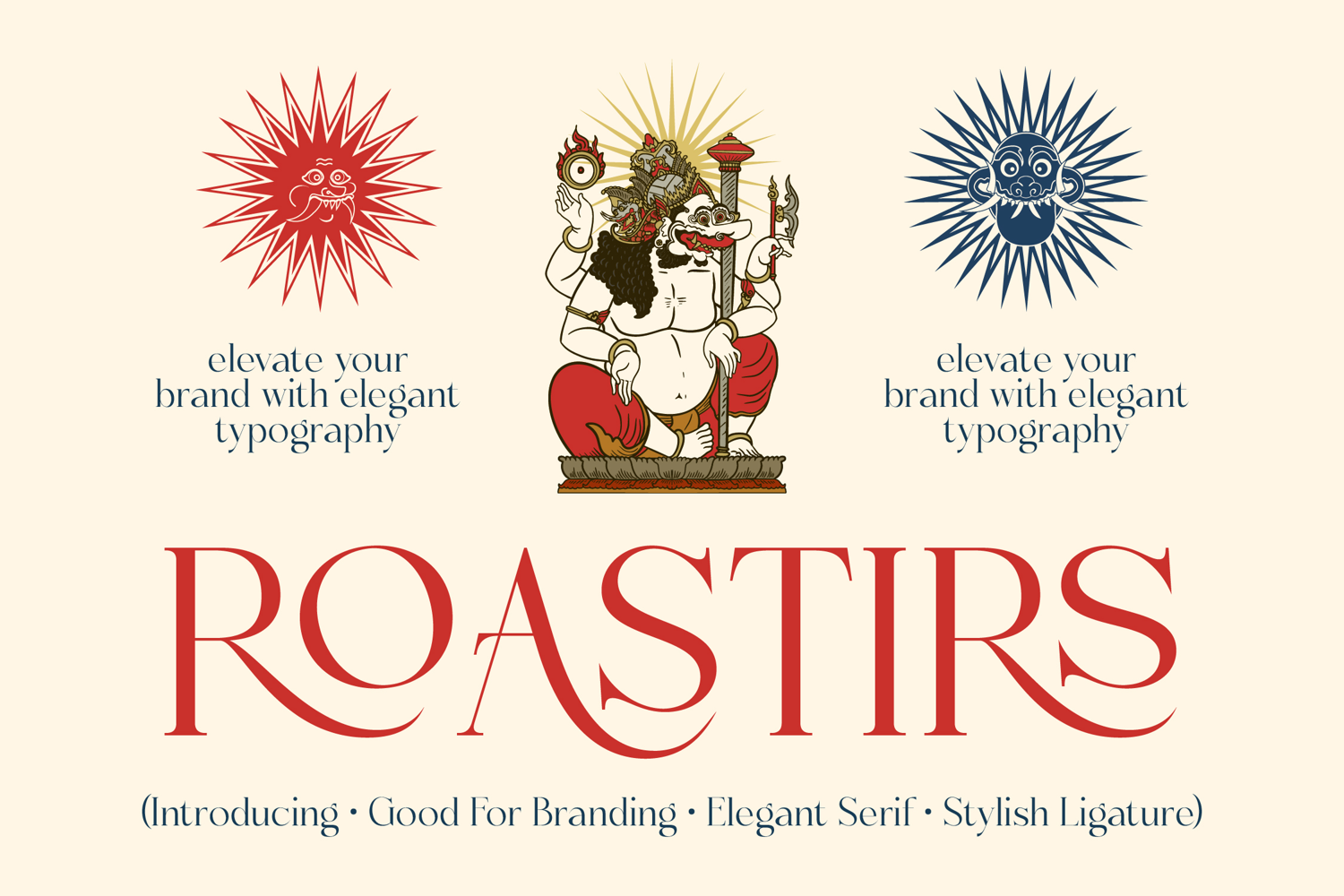
Roastirs - Elegant Editorial Serif
Roastirs is a refined elegant serif typeface crafted for sophisticated branding and high-end visual identity. Inspired by classical proportions and subtle decorative curves, this font blends timeless serif structure with modern luxury appeal. Its stylish ligatures and graceful letterforms create a distinctive rhythm that enhances logos, fashion labels, editorial headlines, perfume packaging, boutique branding, and premium marketing materials. Roastirs delivers confident elegance with balanced contrast, smooth curves, and sharp detailing, making it an excellent choice for designers who want to elevate their brand presence with typography that feels both classic and contemporary.